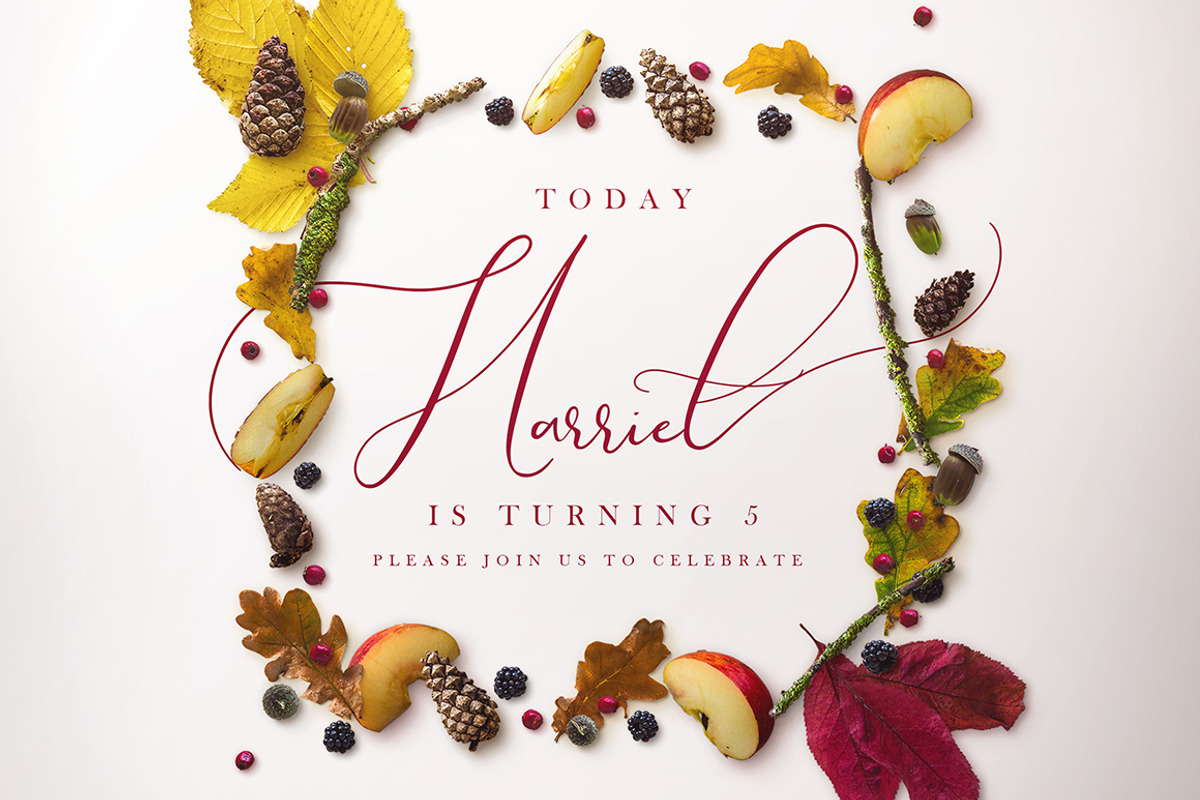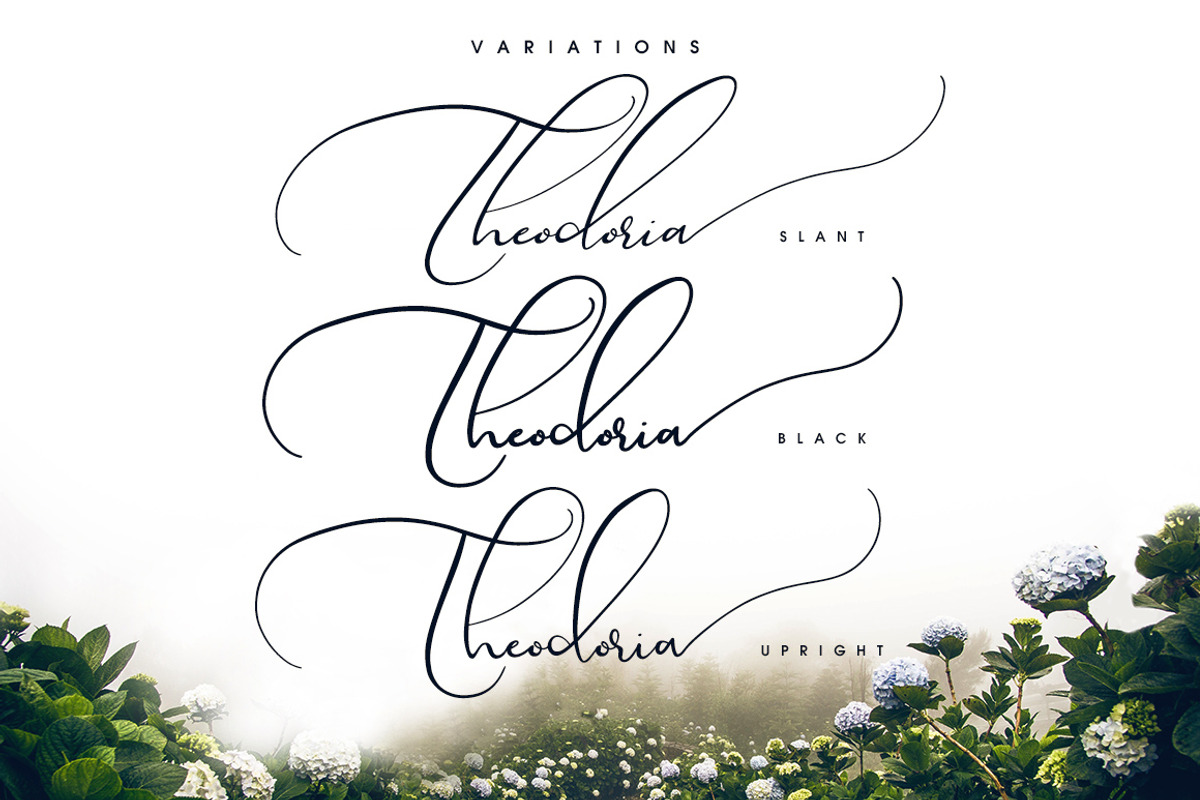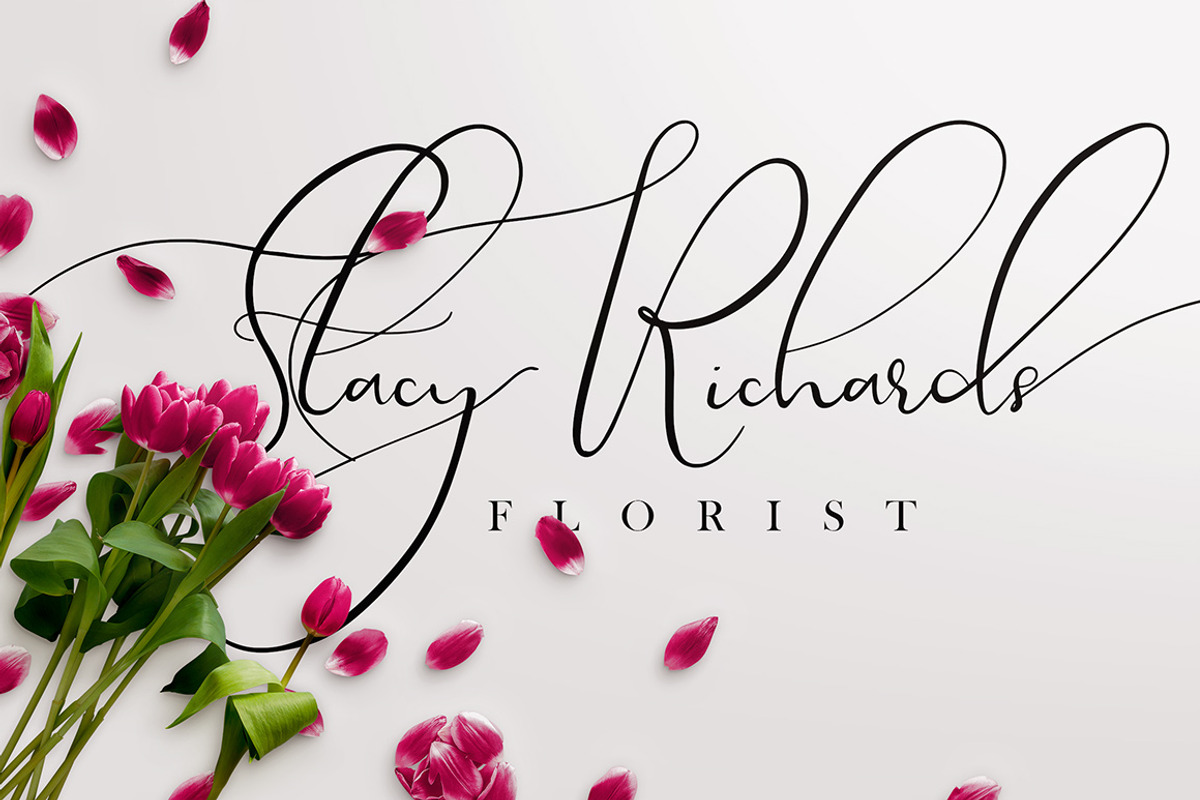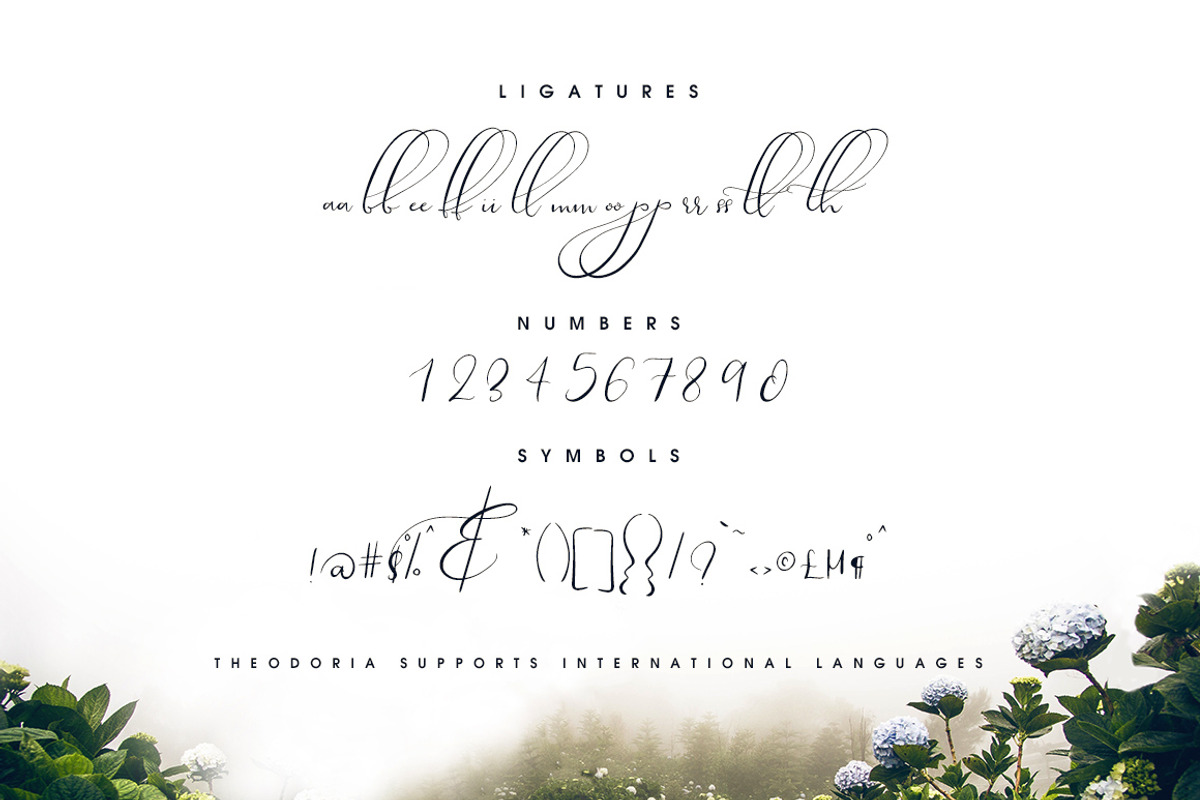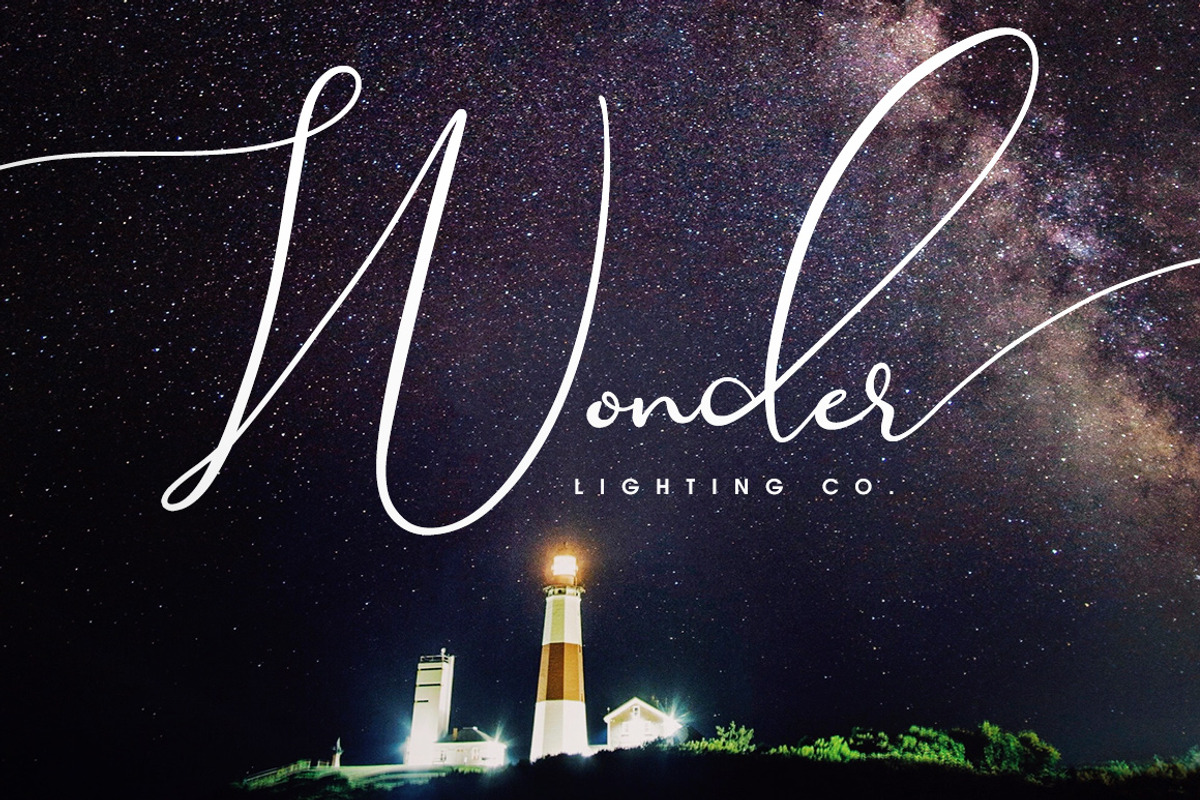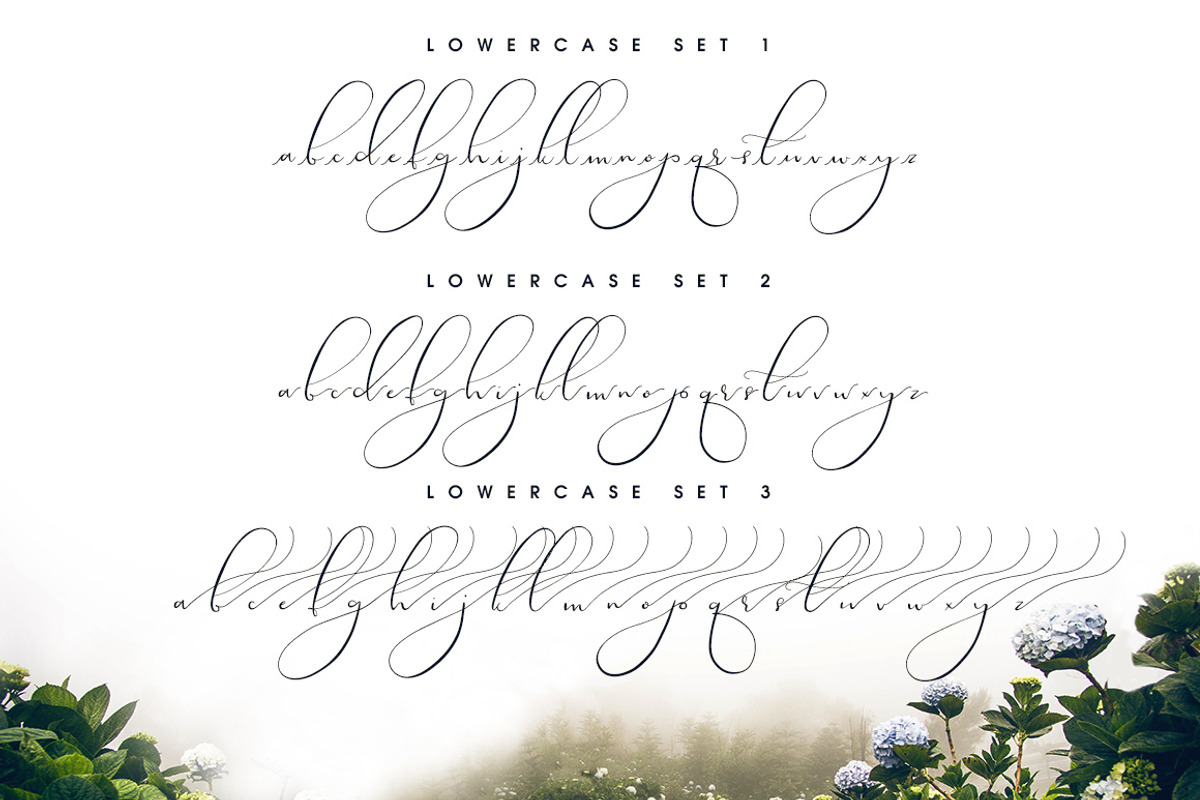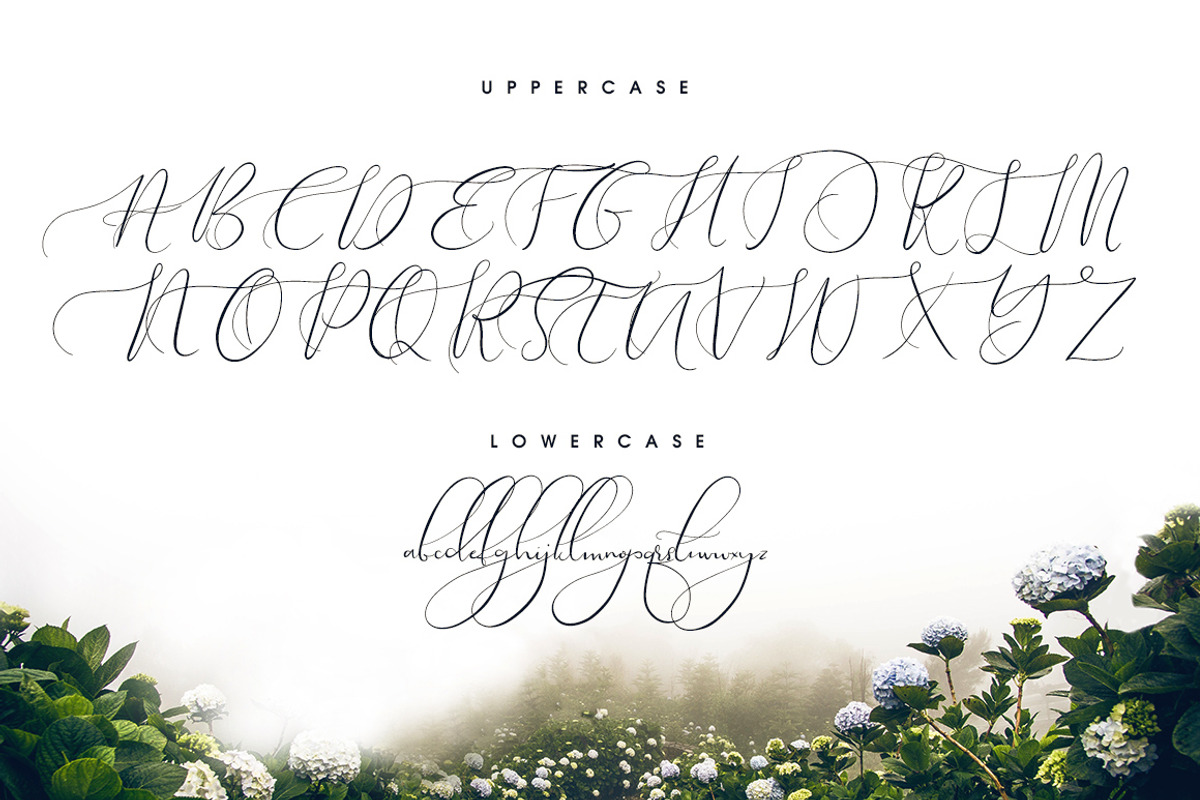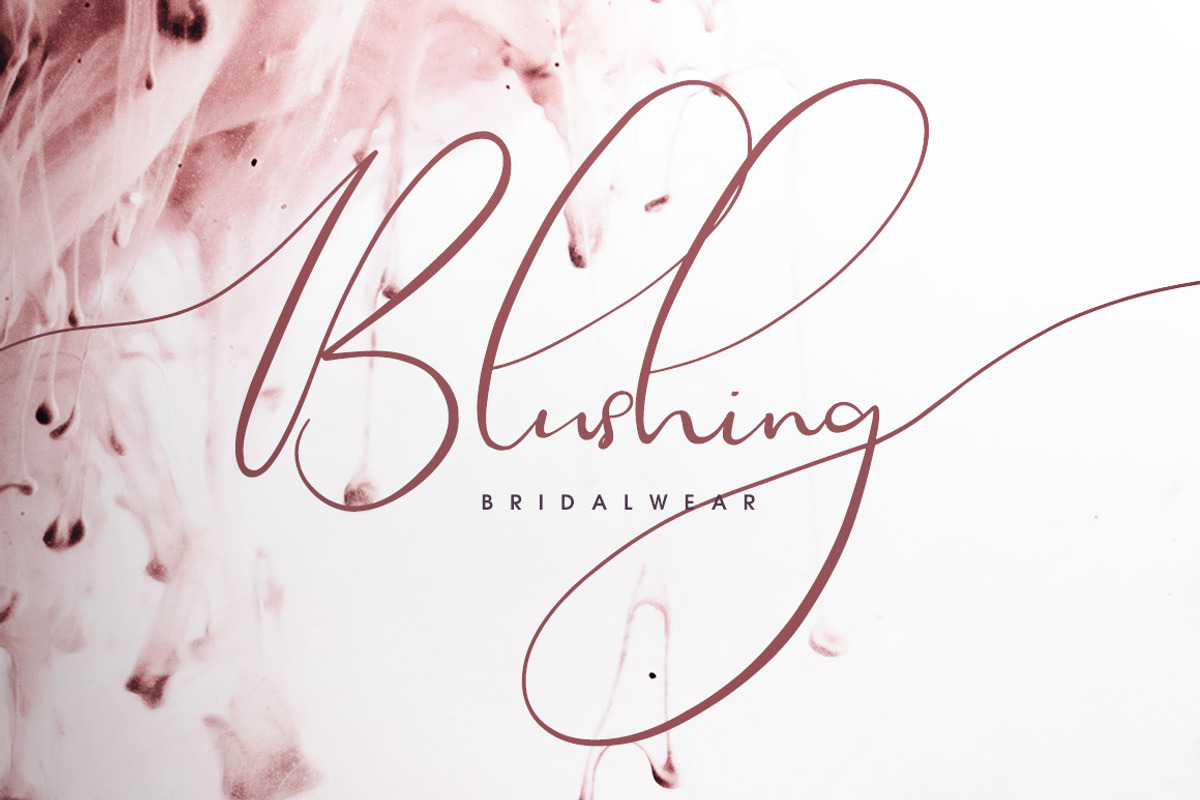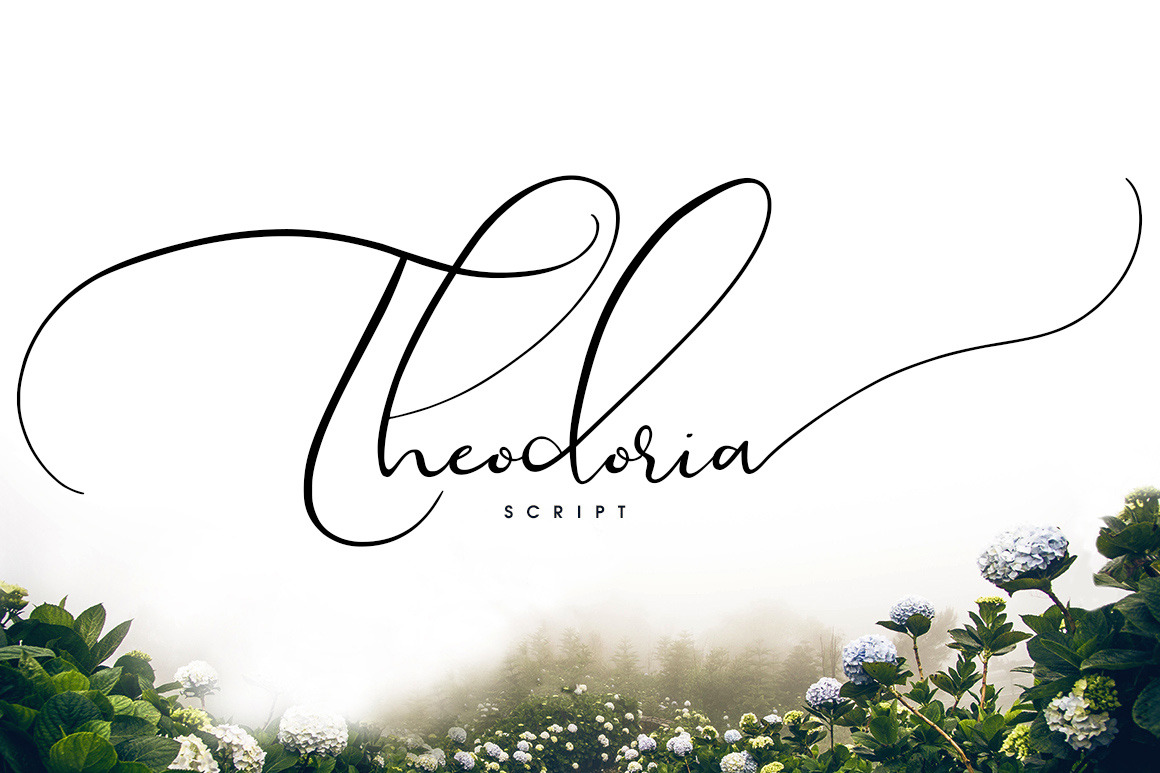
Theodoria Script Font
Introducing Theodoria! A smooth flowing liquid calligraphy script with beautiful loops and swashes
Need to add class to your designs? Theodoria is just the script font you need!
Theodoria has 3 beautiful sets of ligatures, and to access them simply type 1, 2 or 3 after the letter and your perfect swash will appear.
Set 1 is for beginning words in lowercase (the letters have a small swash at the left of the letter) or for letters like "r" after an uppercase letter to help the calligraphy to flow better.
Set 2 have a small ending swash, and works perfectly for ending words in a sentence.
Set 3 have beautiful long ending swashes to complete the effect.
Also included is 13 ligatures (double letters) to give this beautiful font a hand written look.
Theodoria also comes in 4 versions
- Theodoria Regular
- Theodoria Slant
- Theodoria Upright
- Theodoria Black